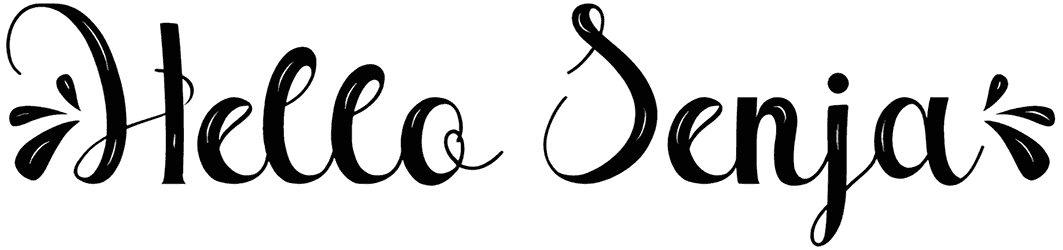
Hello Senja Font
Today, we are bringing you the best of the best; Hello, Senja. It’s a sweet brush font with beautiful flowing swashes that looks playful yet magical, like a fairy tale and its adventurous spirits. This script font doesn’t include numerals. Pick it out for stationery designs, book covers, animation posters, greeting cards, and YouTube titles to create a high-quality organic touch with maximal effect.